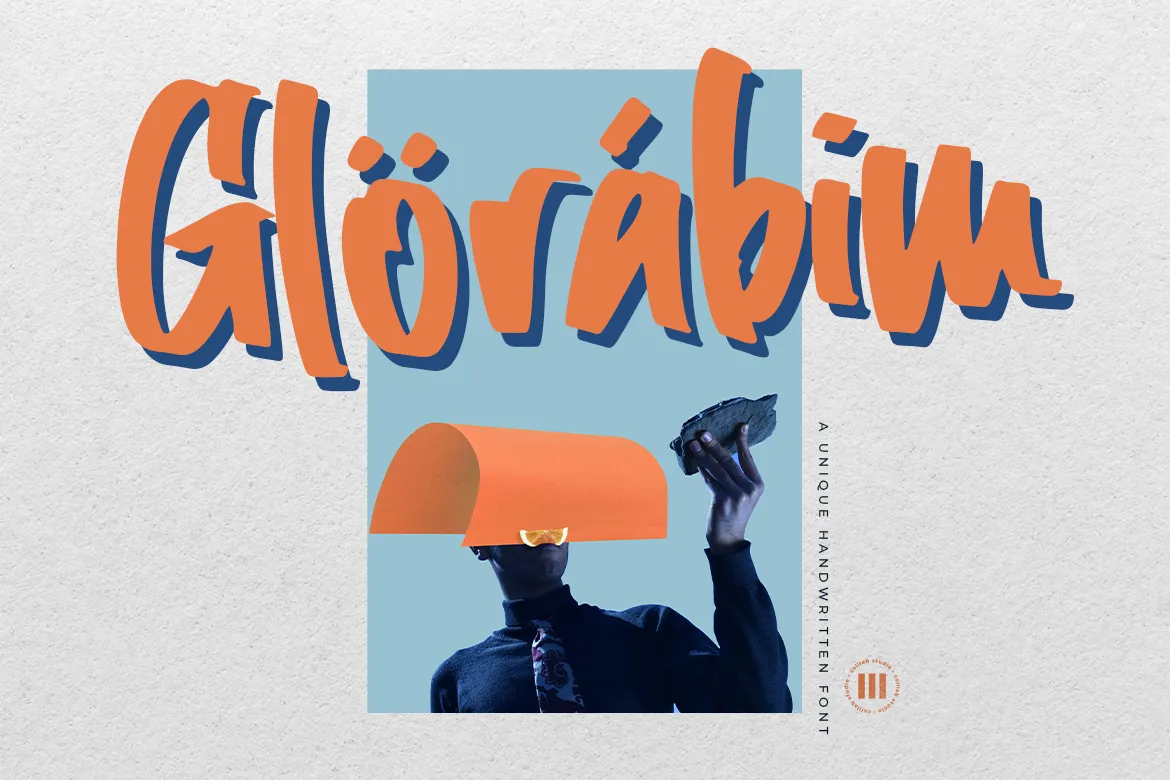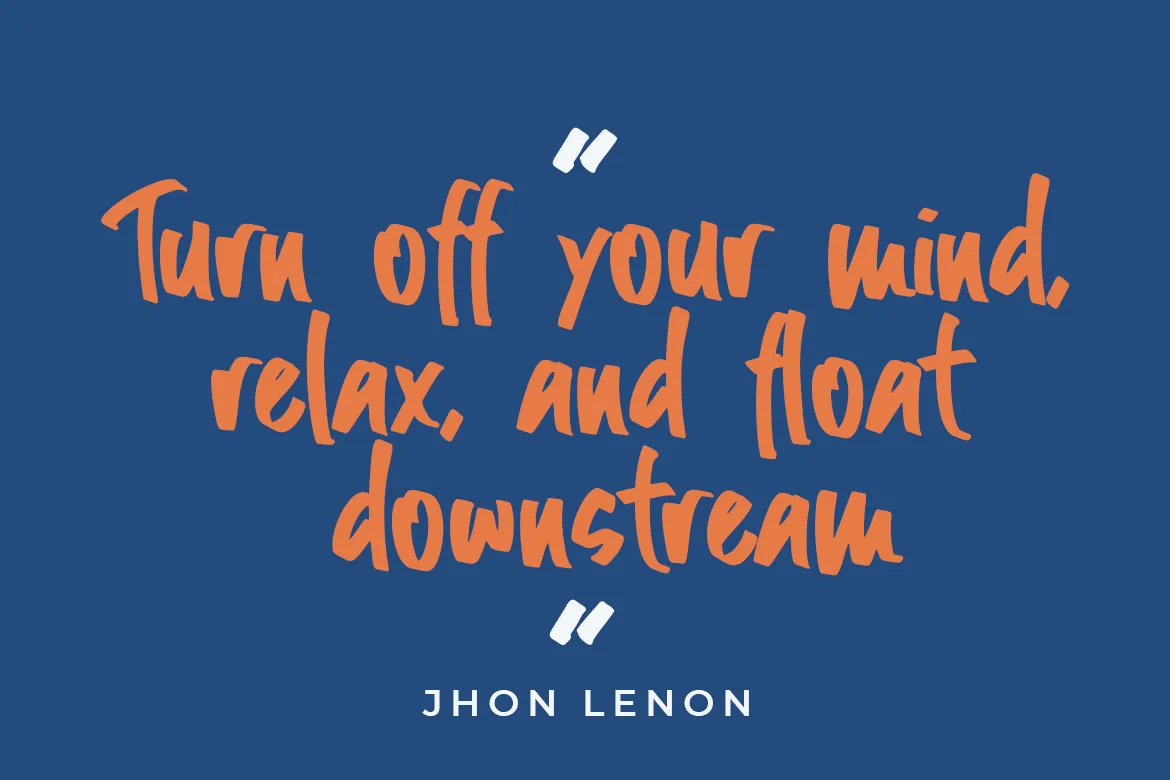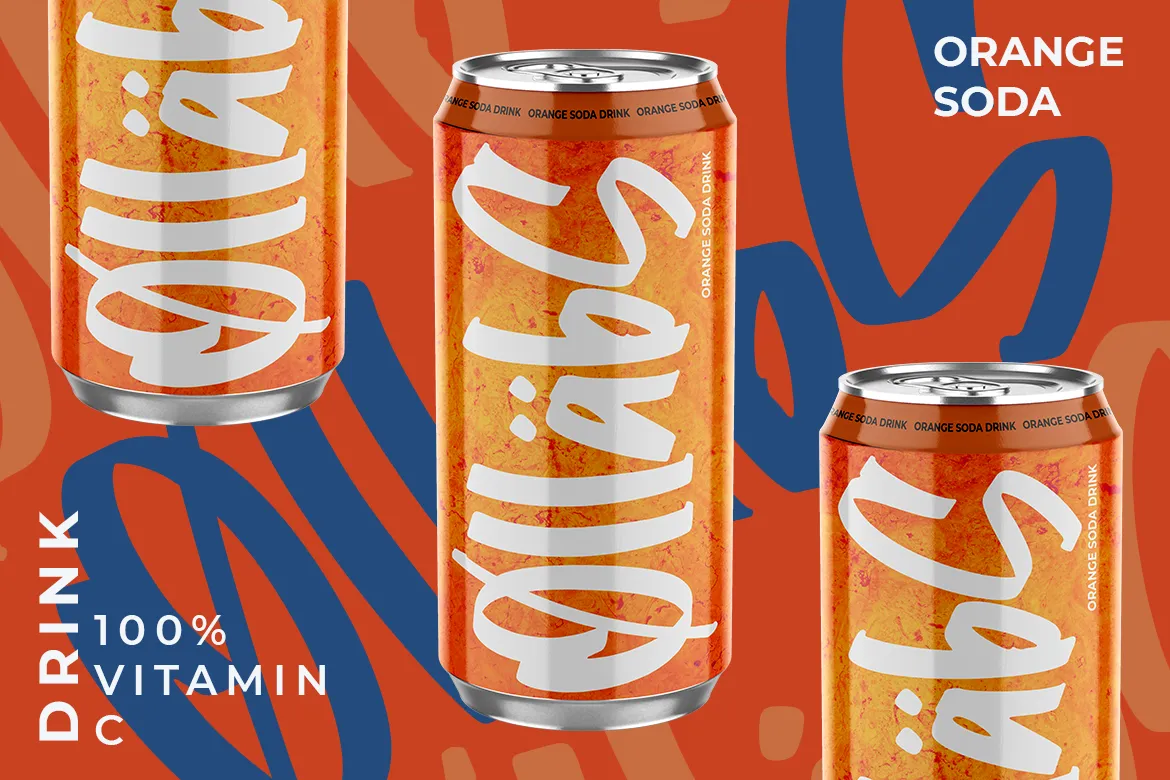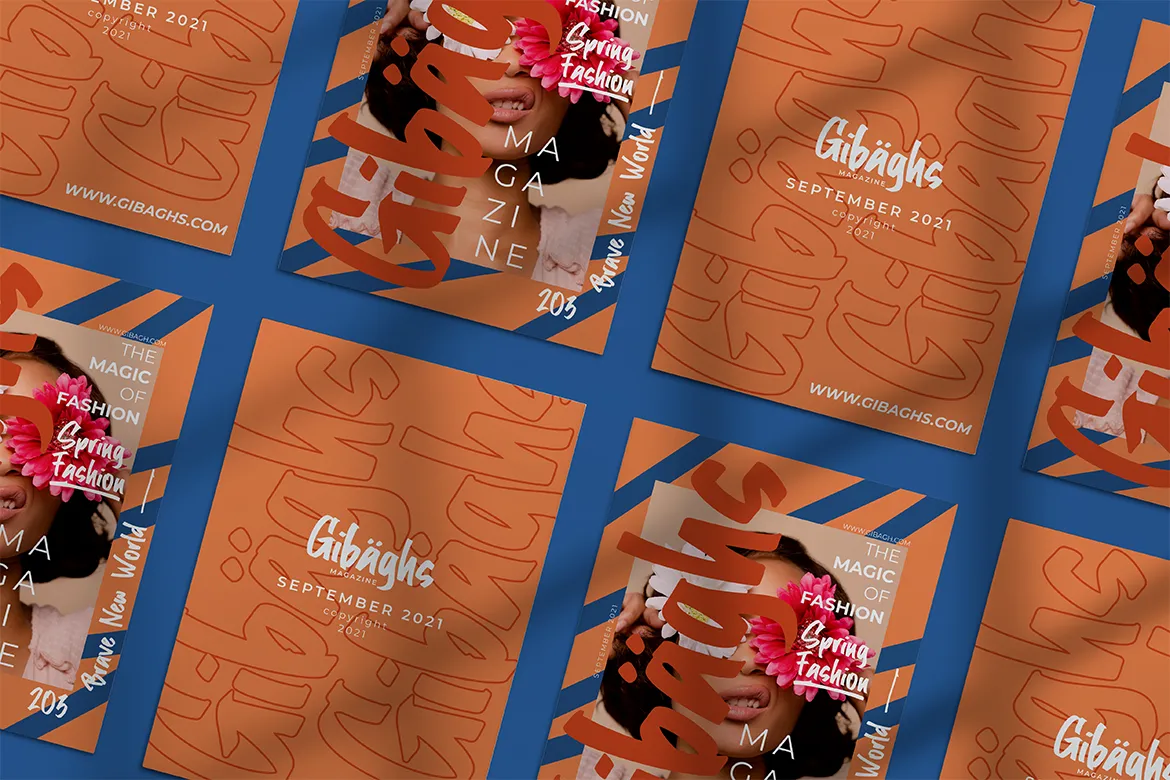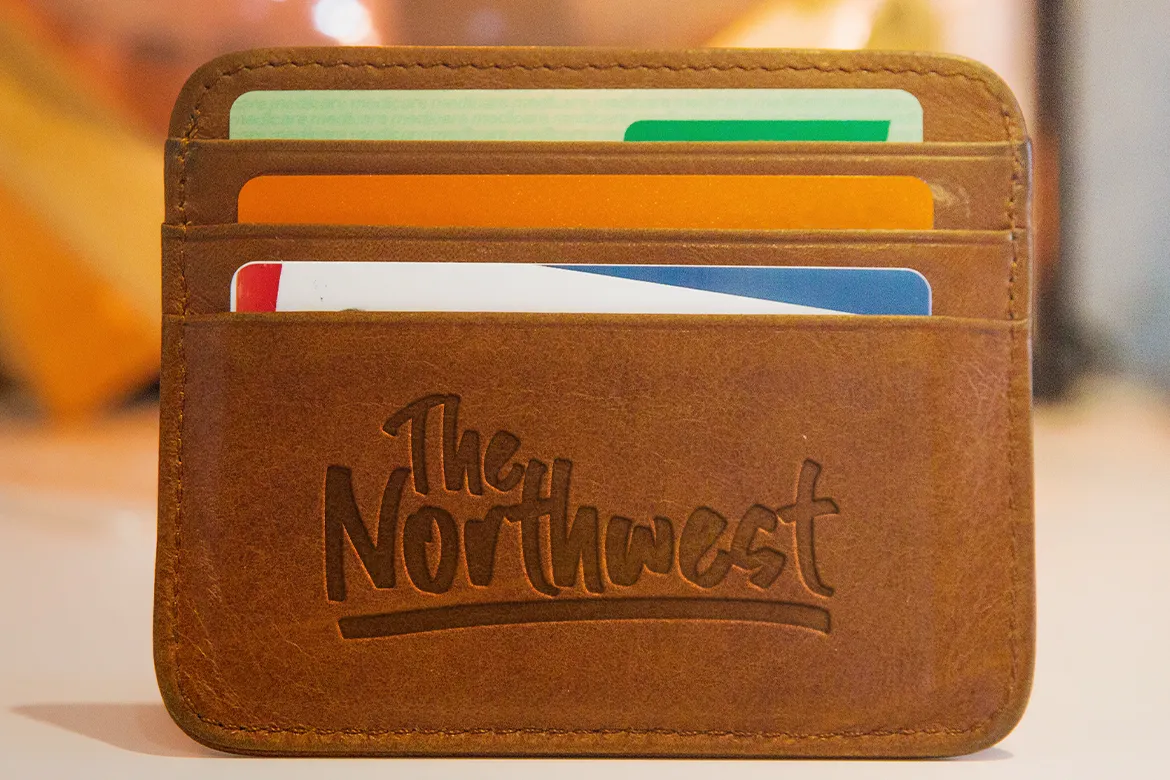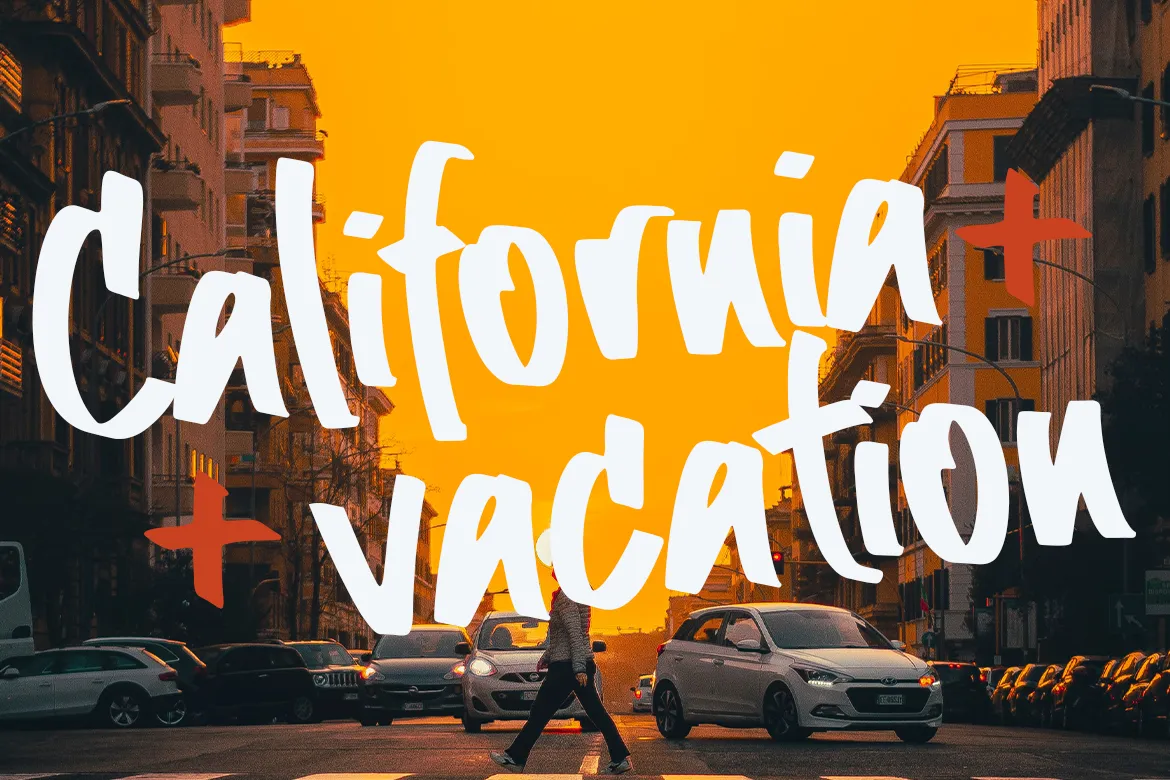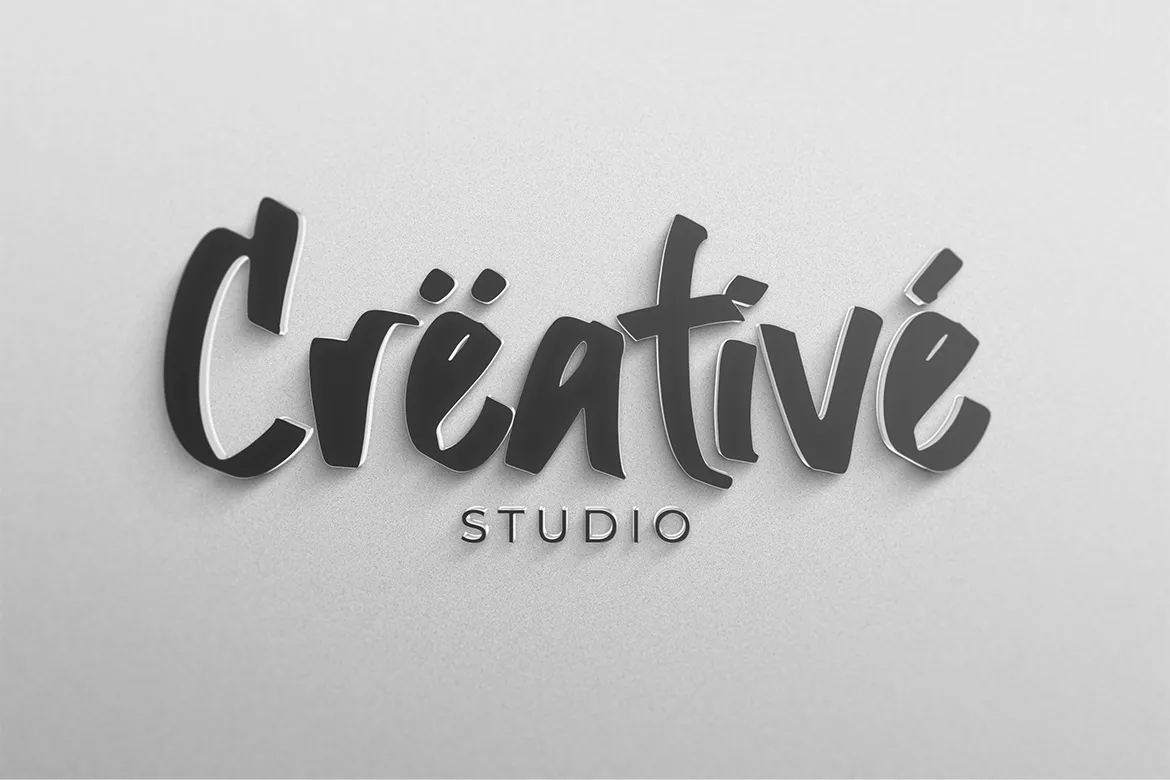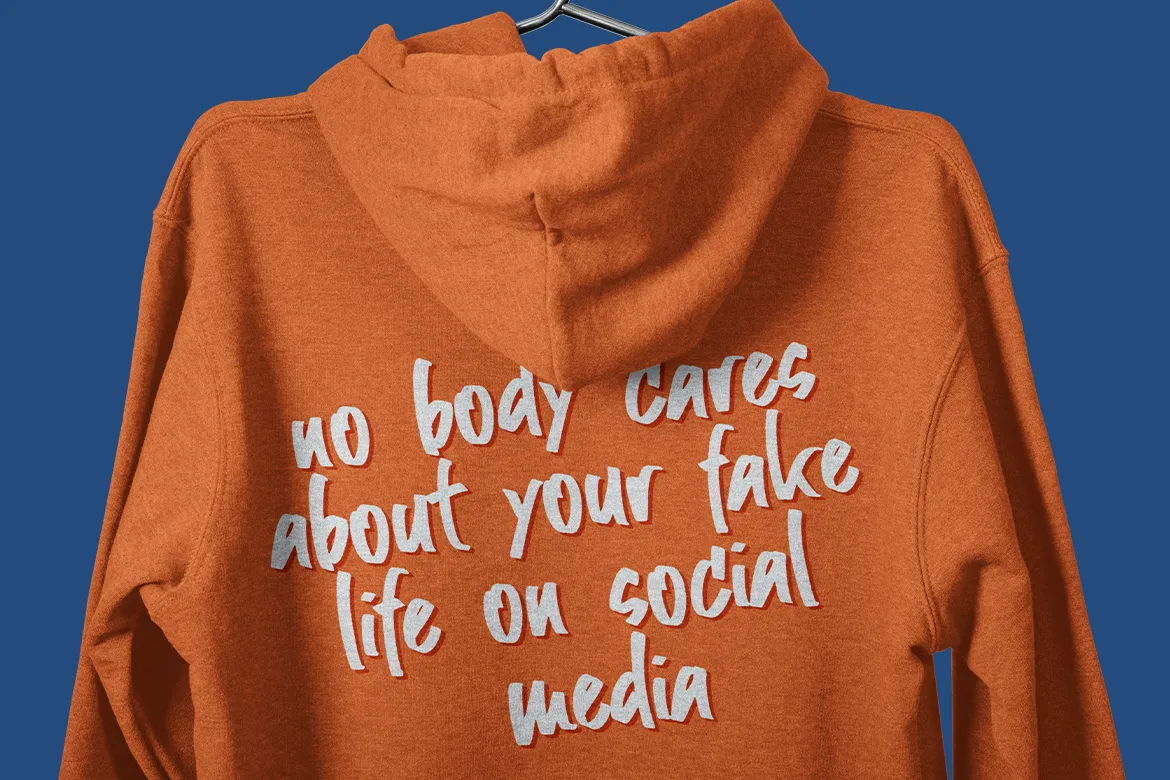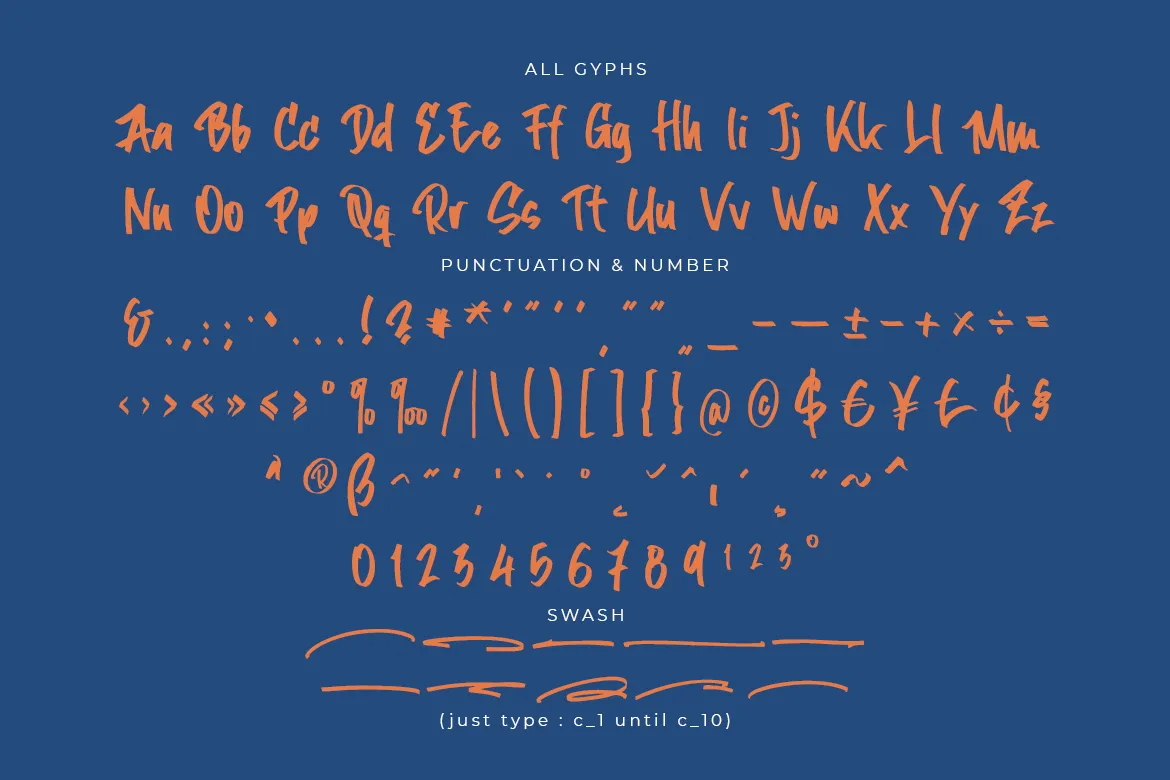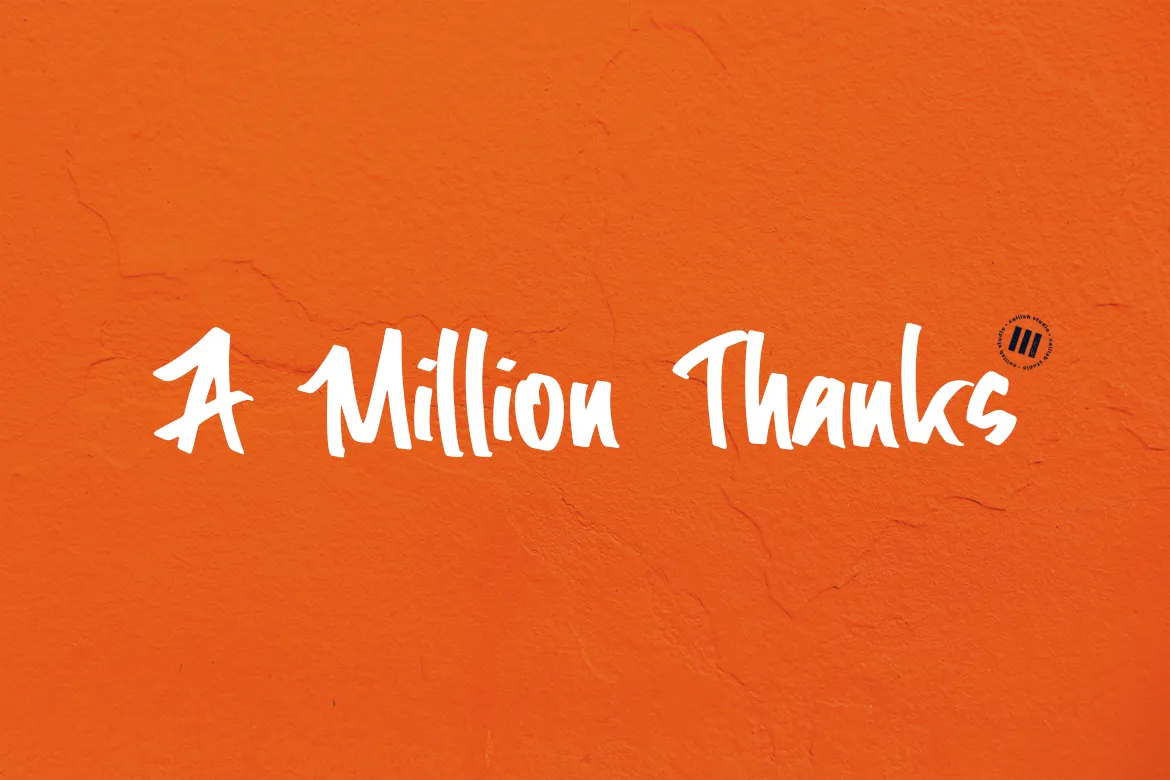
Handwritten fonts are popular because they make your design look more personal, authentic and unique. Glorabim is a unique handwritten font, inspired by urban style design. It is created by using a hand-made pointed brush pen.
This uniquely luxe font was crafted by hand using a pointed brush pen, to capture the spontaneous, fun feeling of an urban-style design. It’s perfect for logos, branding, greeting cards and invitations, apparel, posters and much more.
With Glorabim, you can create your unique and stylish designs with just a few clicks. Glorabim’s natural handwritten feel will bring a personal touch to any project.